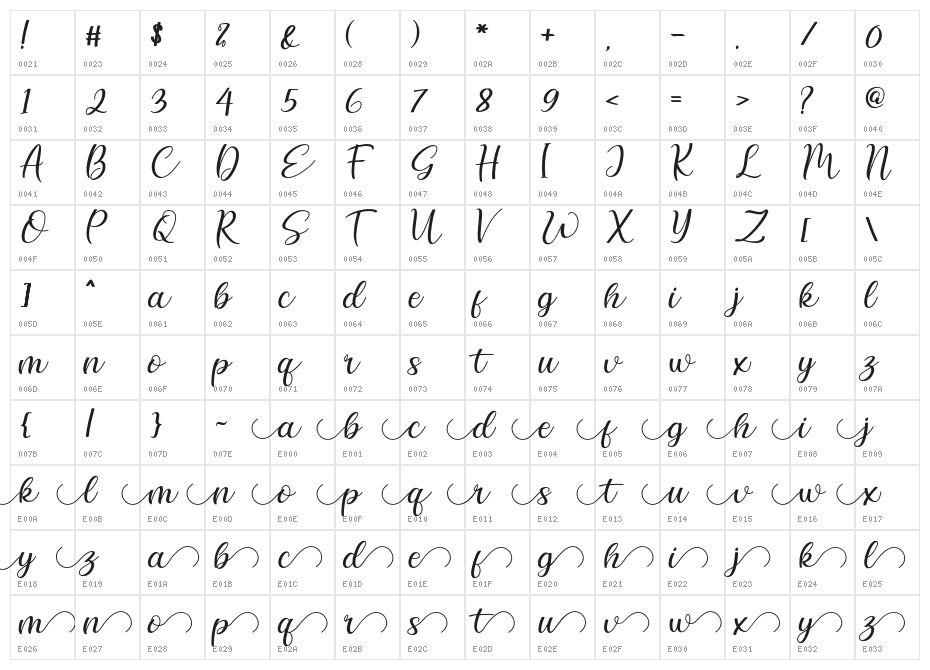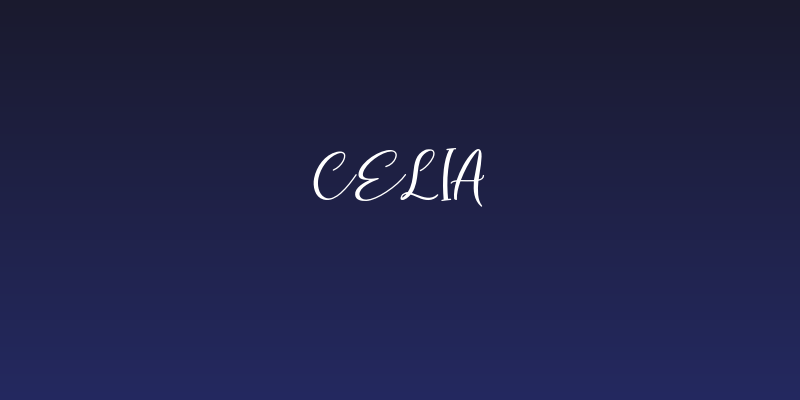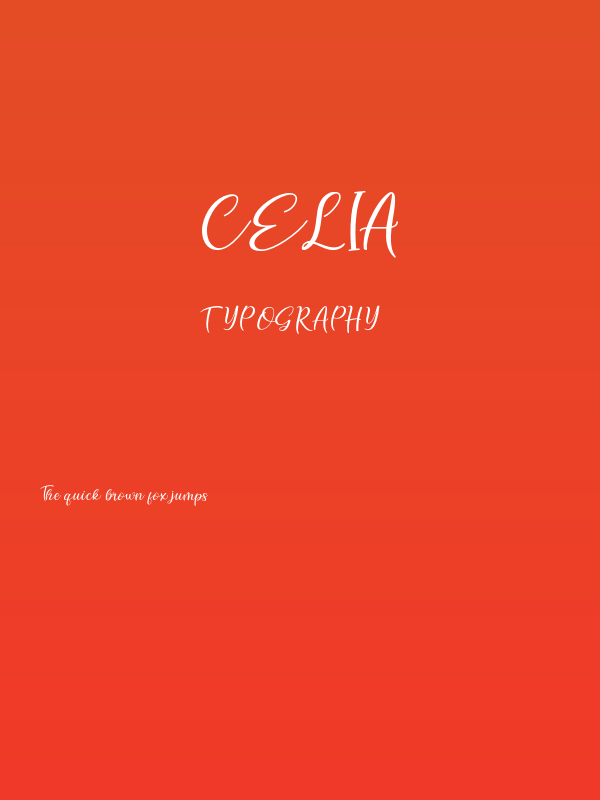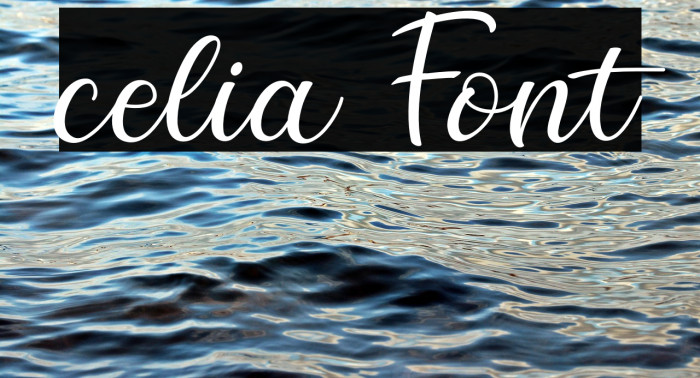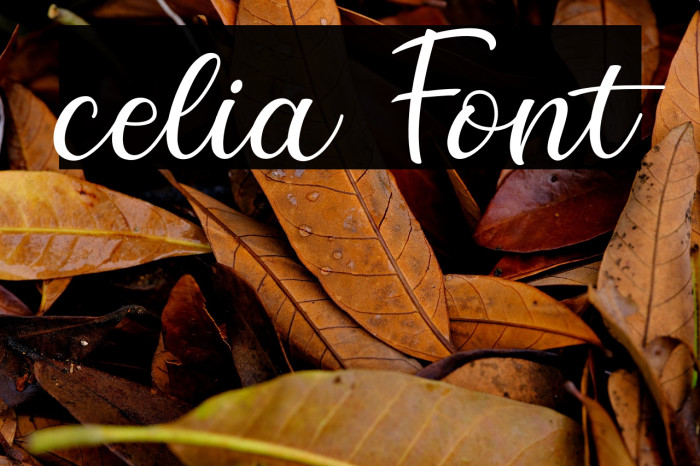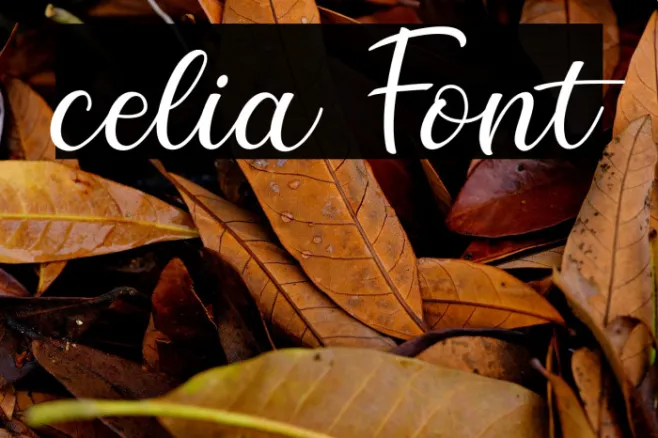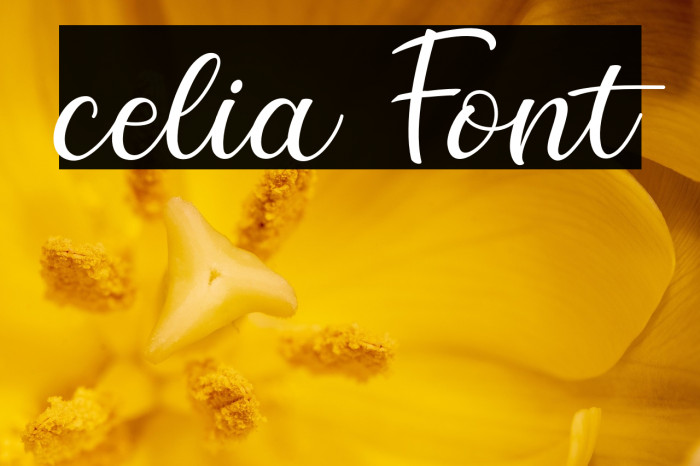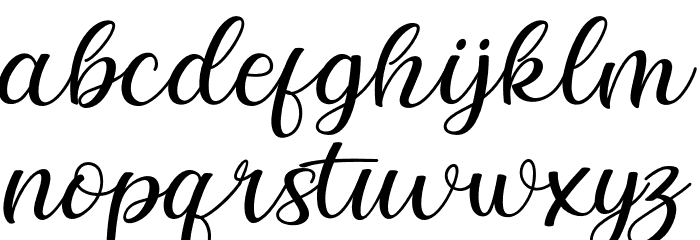
celia Font
celia Description
This font features a flowing, cursive style with elegant, sweeping strokes that give it a handwritten appearance. The uppercase letters are characterized by their tall, graceful loops and curves, while the lowercase letters maintain a consistent, smooth flow. The numbers and special characters complement the alphabet with a similar fluidity and charm. The overall design is both sophisticated and approachable, making it suitable for a variety of creative applications. The font's balance between thick and thin strokes adds a touch of dynamism and visual interest.
| Use Case | Logos, Invitations, Decorative text |
| Proposed Projects | Ideal for wedding invitations, greeting cards, branding, and logo design. |